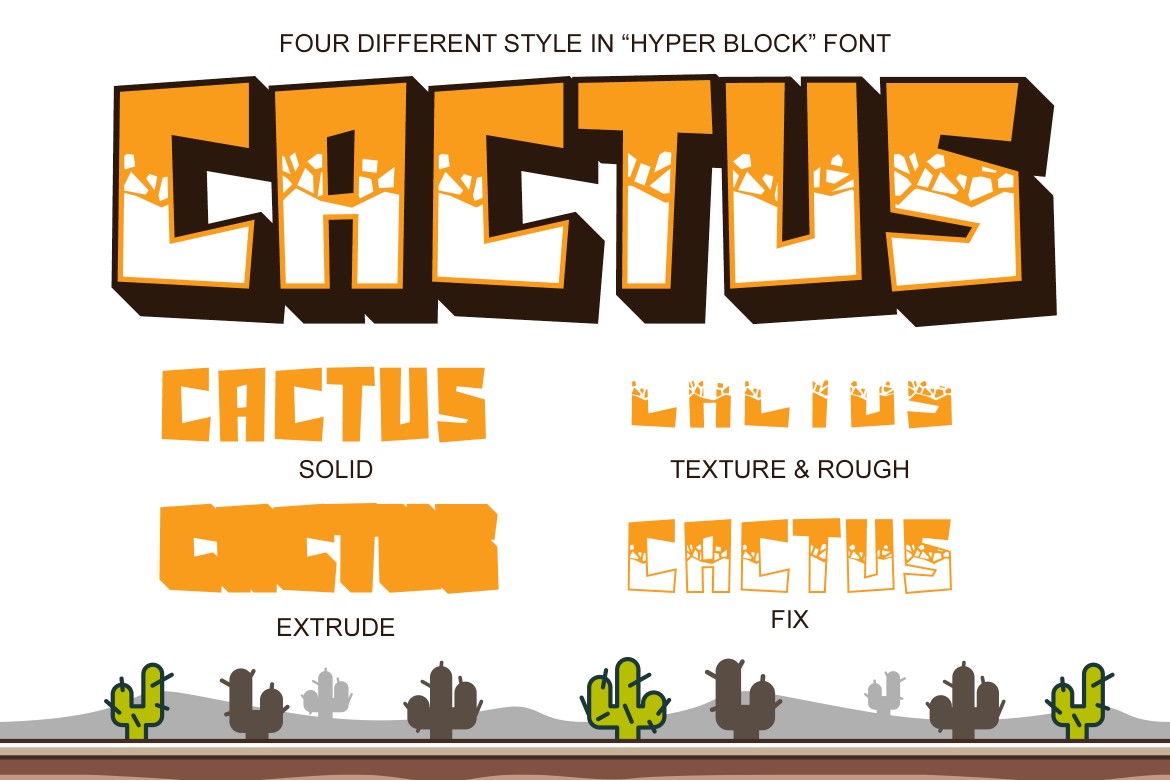
Hyper Block - Fun Gaming Font
Hyper Block – Layered Gaming Font
Get ready to power up your design with Hyper Block, a bold and energetic layered font made for the gaming world! With its chunky block style and cracked ice effects, Hyper Block delivers a playful, adventurous feel that’s perfect for game titles, YouTube thumbnails, posters, and kids' content.
This font comes with layered styles, allowing you to mix and match shadows, outlines, and fill layers to create eye-catching, dynamic text with ease. Whether you're creating a mobile game, a cartoon logo, or fun merchandise, Hyper Block is your ultimate weapon for bold design!
Features:
• All-caps display font
• Layered style (base, shadow, outline)
• Fun, blocky, and high-energy look
• Easy to customize colors and effects